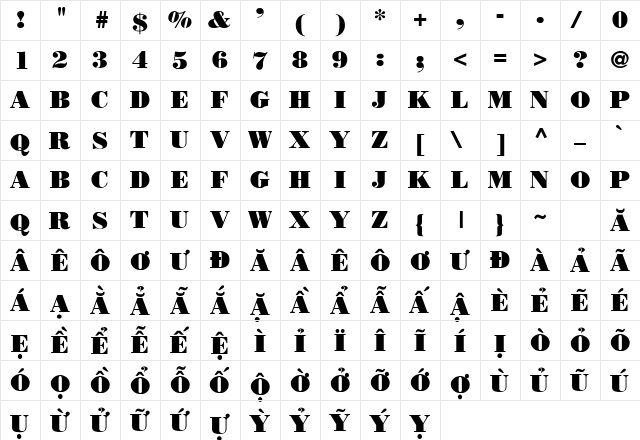
.VnBodoniH Regular
Design Context for .VnBodoniH Typeface
.VnBodoniH is a composed and adaptable typeface that performs quietly and consistently across a wide range of design contexts.